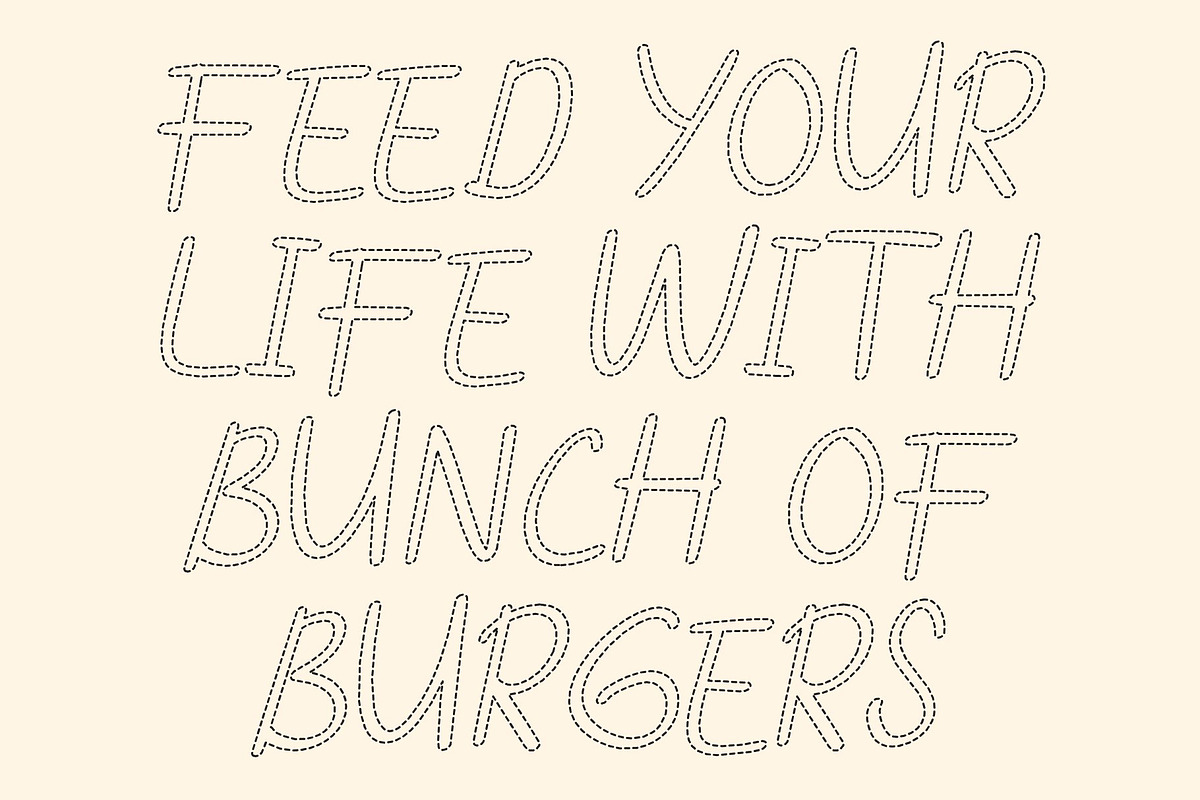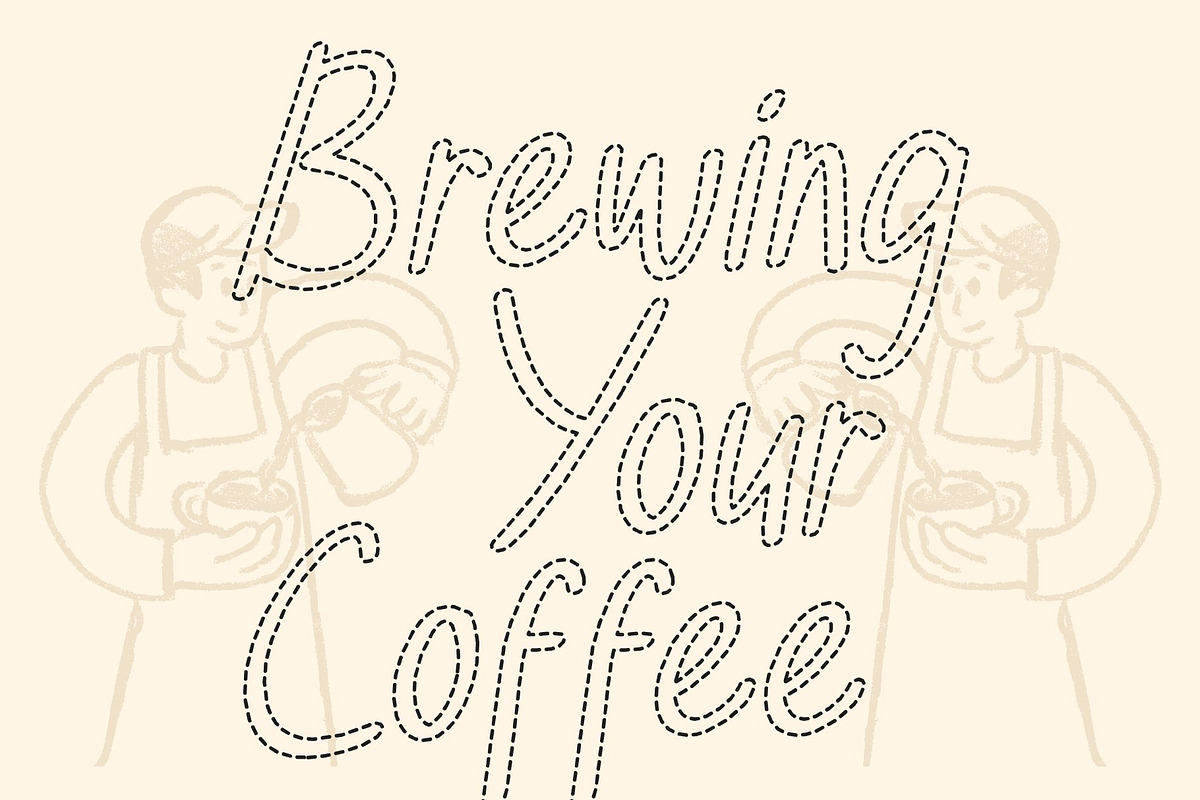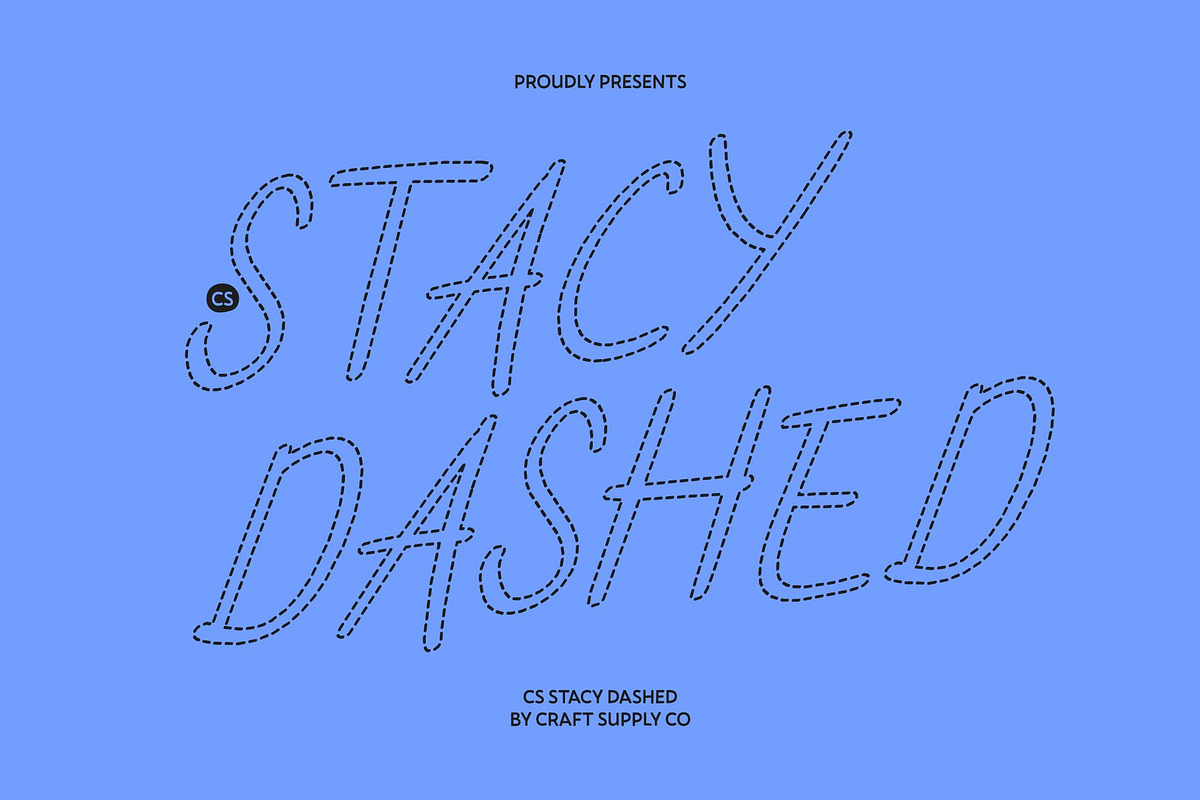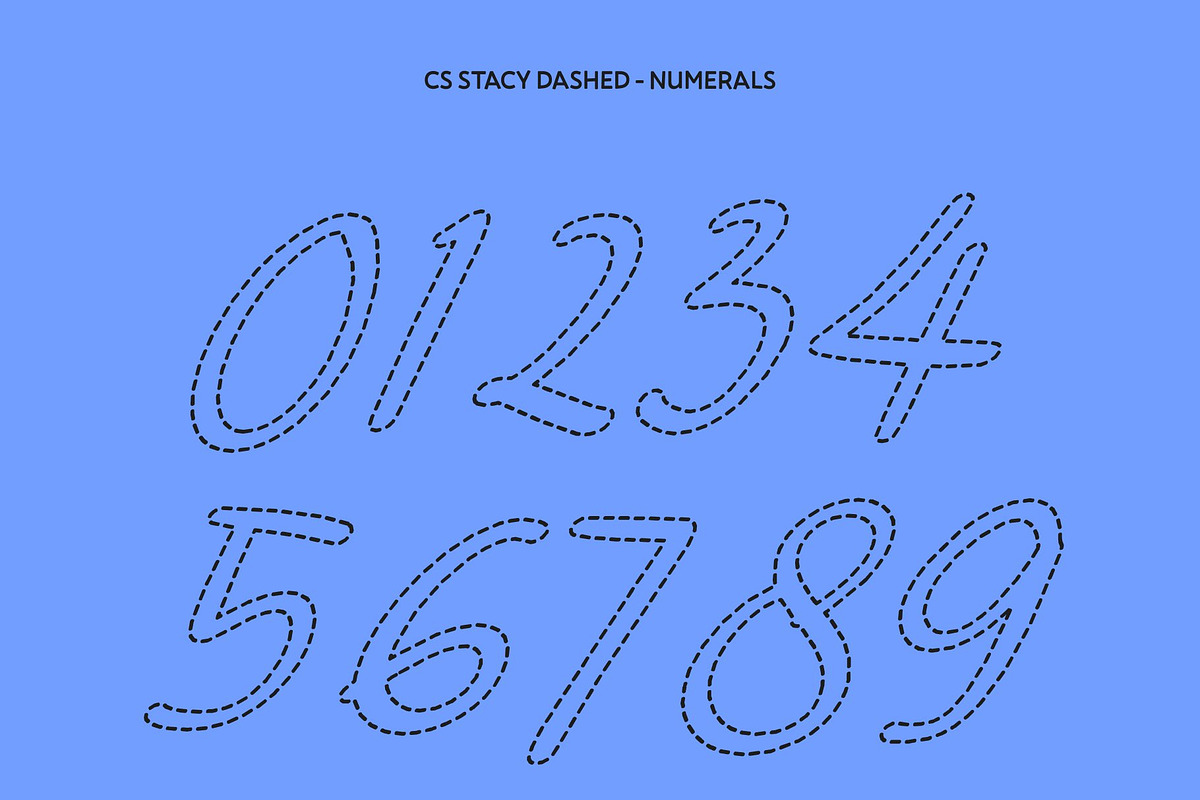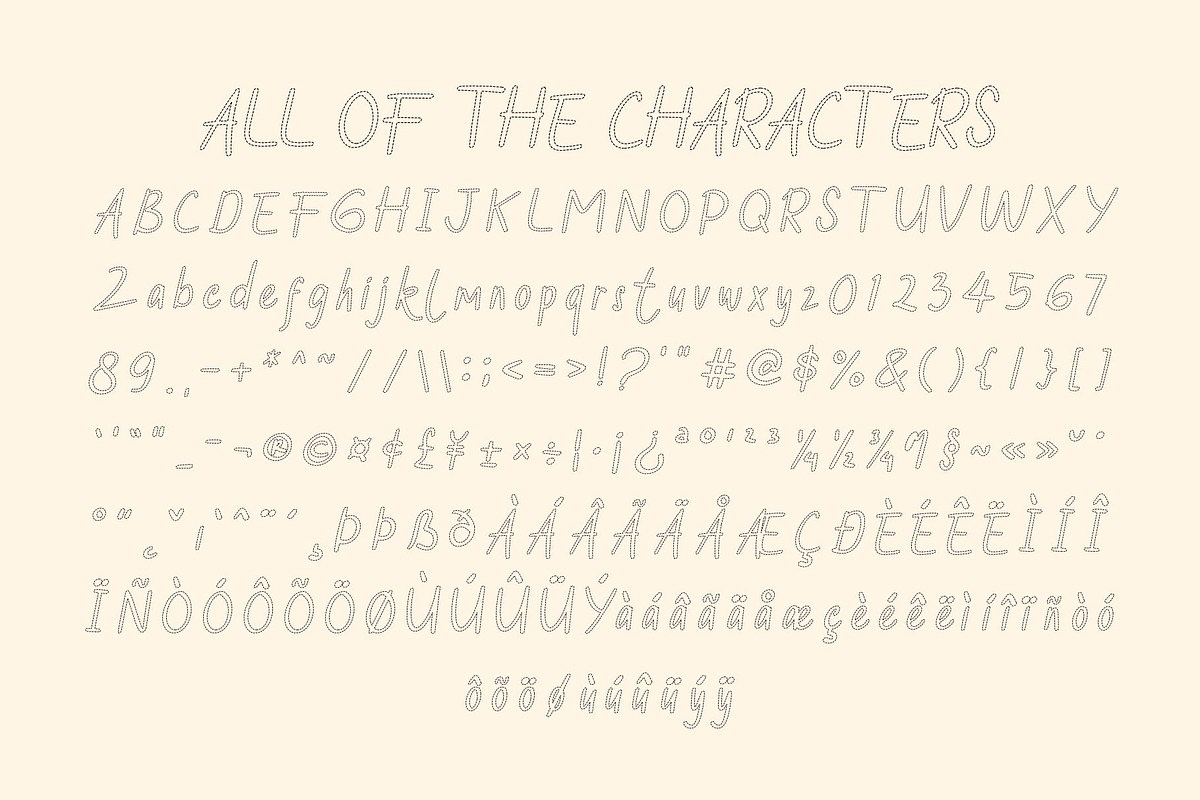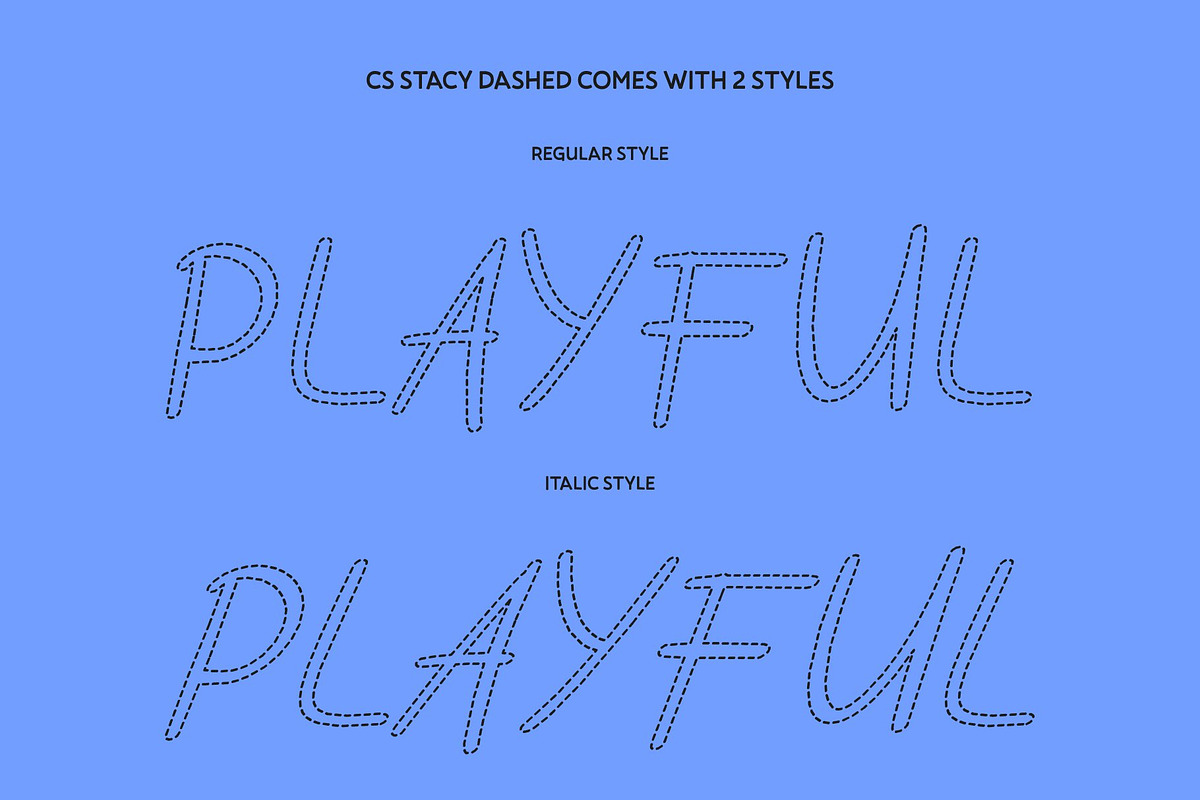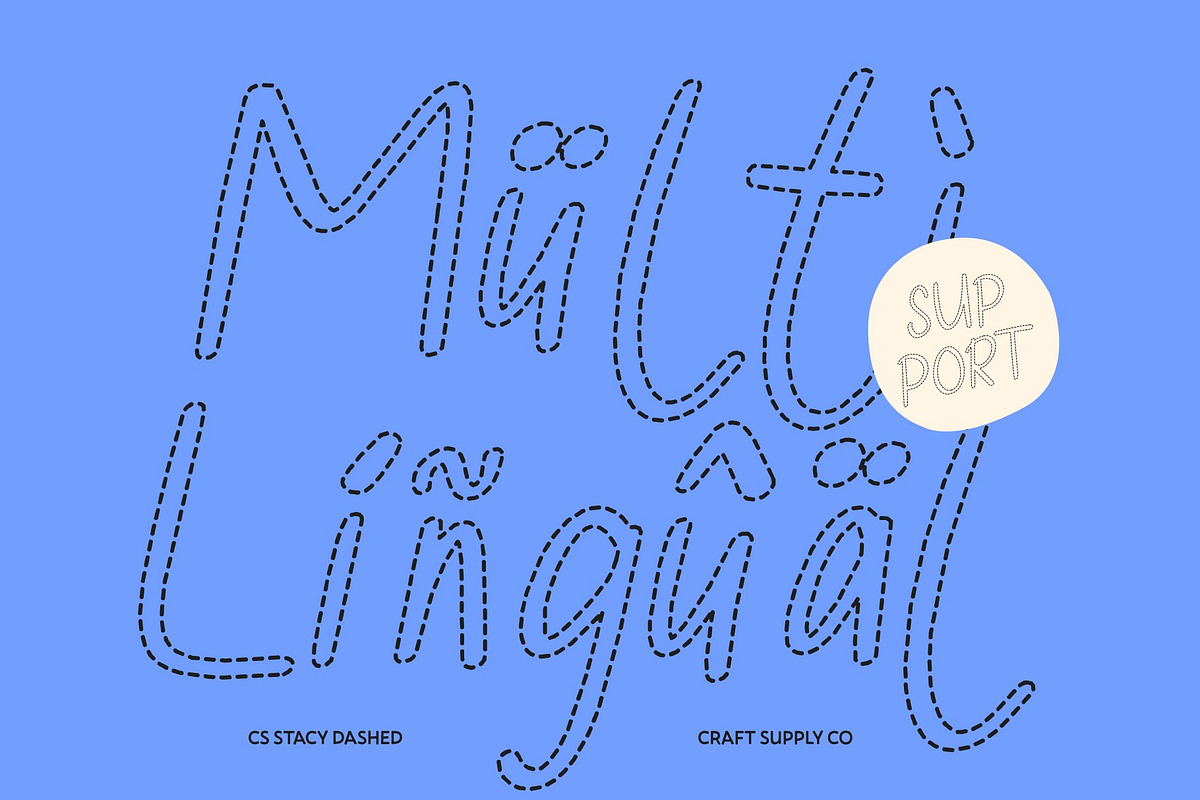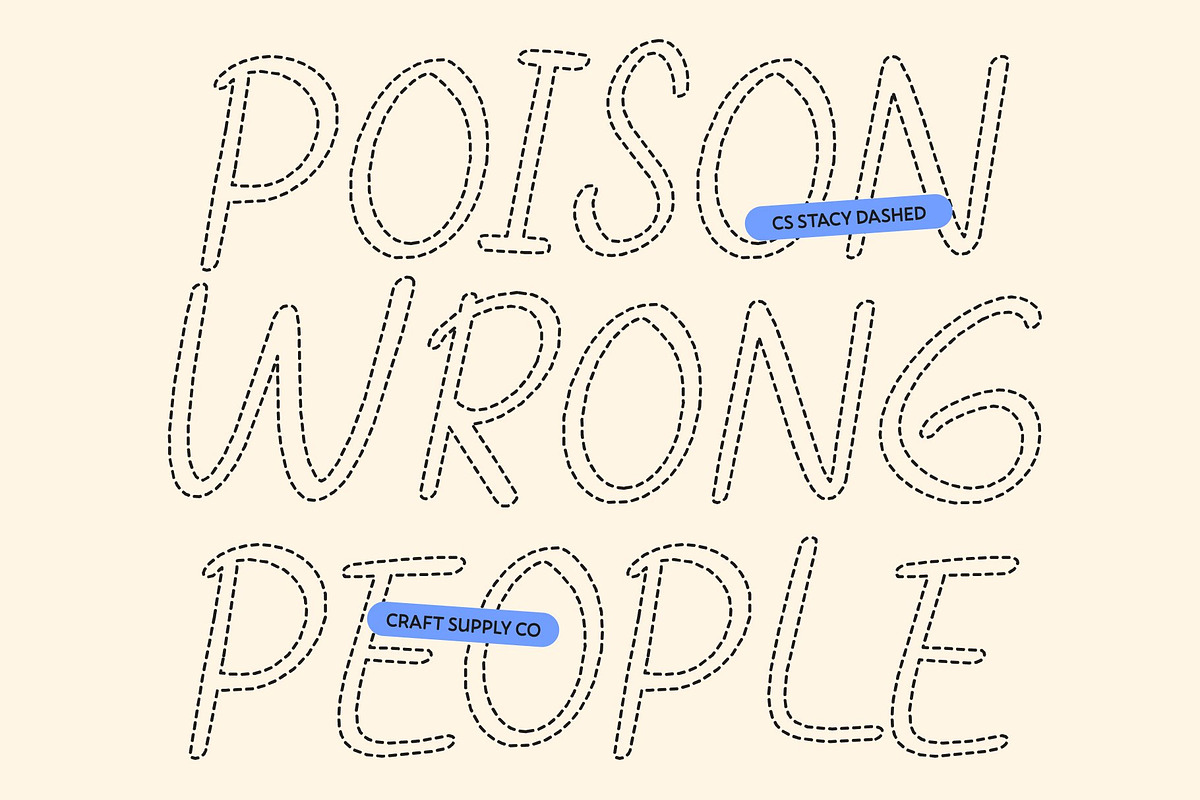
CS Stacy Dashed
CS Stacy Dashed – Hand-Drawn Font with Organic Character
Organic Hand-Drawn Style with Expressive Personality This is an organic hand-drawn font crafted to capture the charm and authenticity of handmade lettering. Its expressive lines and natural imperfections give every character a lively, human touch, creating a warm and approachable visual tone. The dashed texture adds an extra layer of handcrafted detail, making the font feel playful, friendly, and full of personality.
Unique Handmade Character for Creative Design Featuring irregular strokes and playful shapes, this font stands out with a strong sense of individuality. Each letter feels spontaneous and genuine, helping designs appear more personal and engaging. The dashed effect enhances the artistic feel while keeping the overall look modern and visually distinctive.
Perfect for Labels, Posters, and Packaging This font shines in projects that benefit from a handcrafted aesthetic. It works beautifully for product labels, posters, creative packaging, and branding that aims to feel authentic and inviting. The organic flow of the letterforms maintains readability while adding a charming artistic flair.
Ideal for Expressive and Creative Projects Whether used in branding, editorial layouts, or decorative displays, this font brings a playful yet professional handmade vibe. Its organic style ensures every design feels unique, memorable, and full of creative energy perfect for designers seeking expressive, hand-crafted typography.
CS Stacy Dashed Regular
CS Stacy Dashed Italic